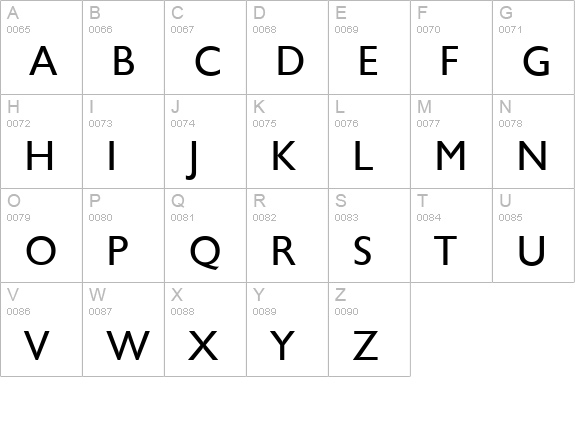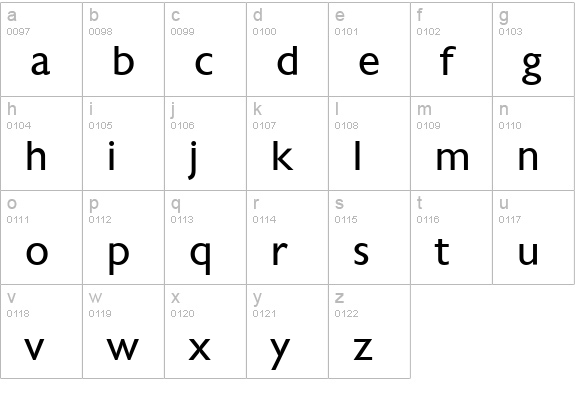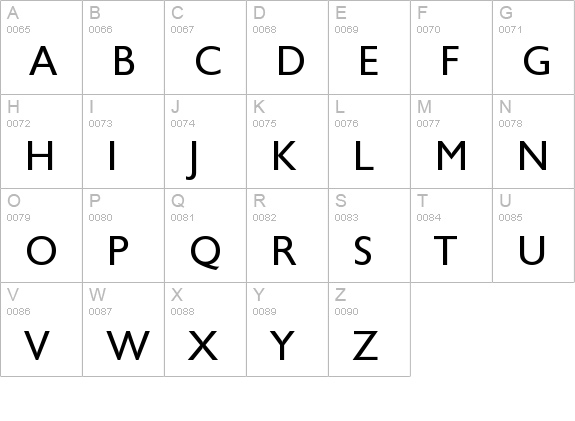
ChantillySerial-Regular Font Details
ChantillySerial-Regular is the standard, neutral variant in the ChantillySerial typeface family \xE2\x80\x94 well suited to general body text, paragraphs, and standard typographic work.
ChantillySerial-Regular is a versatile and elegant font that exudes sophistication and charm. With its delicate curves and timeless appeal, this font is perfect for adding a touch of class to any project. Whether you are designing invitations, logos, or branding materials, ChantillySerial-Regular is sure to make a lasting impression. Best of all, ChantillySerial-Regular is available for free download at FontsMarket.com. This means you can easily access this stunning font without any cost, making it the perfect choice for designers on a budget. Don't miss out on the opportunity to enhance your designs with the beauty of ChantillySerial-Regular - download it today and elevate your creative projects to new heights.